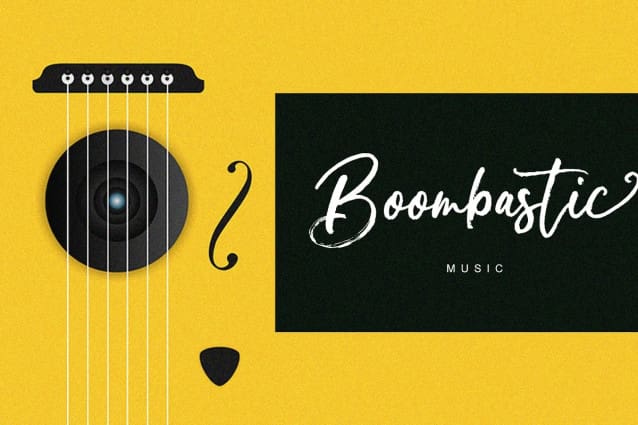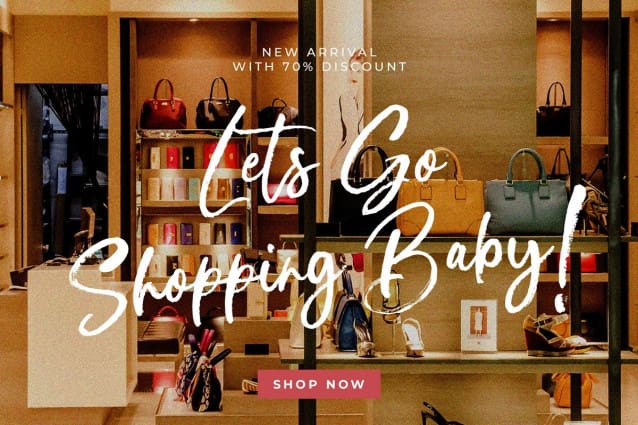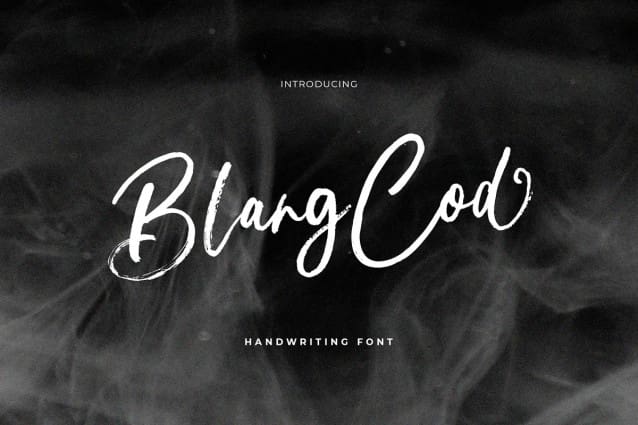
Blang Cod Font
Blang Cod Font, is a handwritten script font, based on free-flowing, friendly, and organic signature style expressions. hand painted with love. Sellyna Brush is available with alternative ligatures and characters in the Open Type Feature. Perfect for branding projects, logos, product packaging, posters, invitations, greeting cards, news, blogs, everything including personal charm.